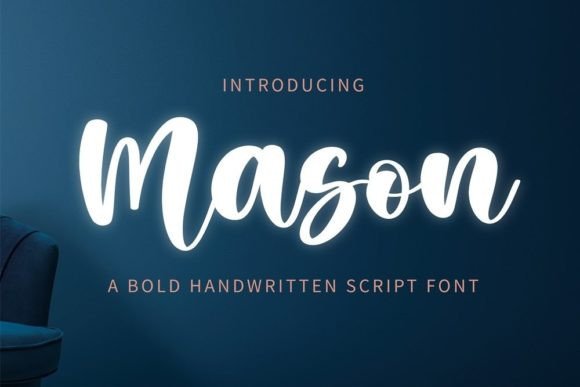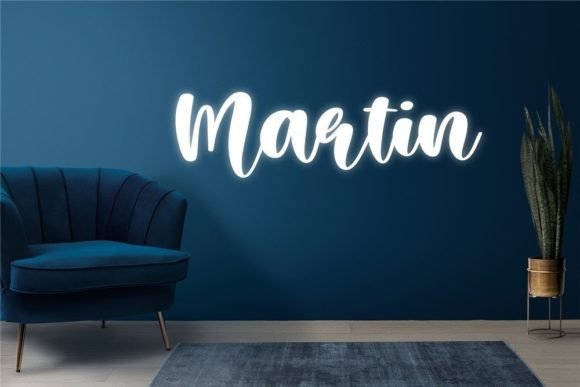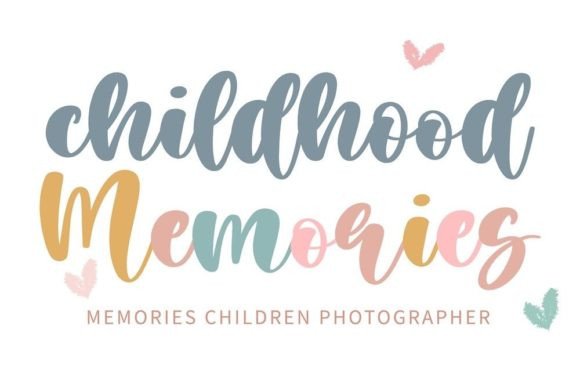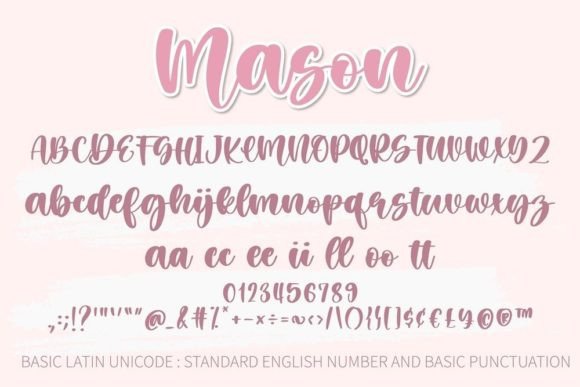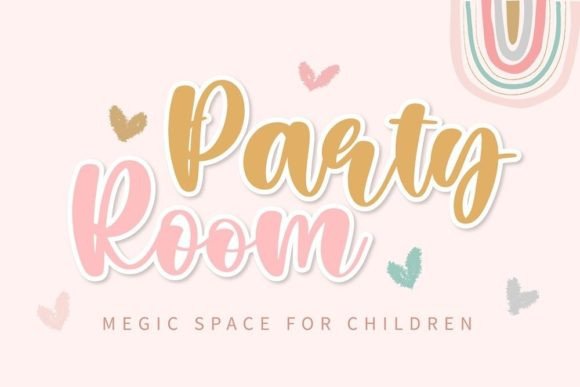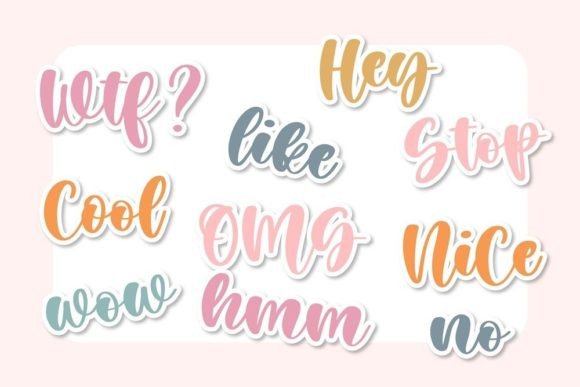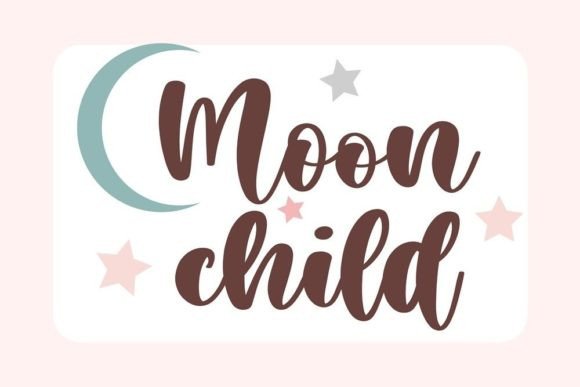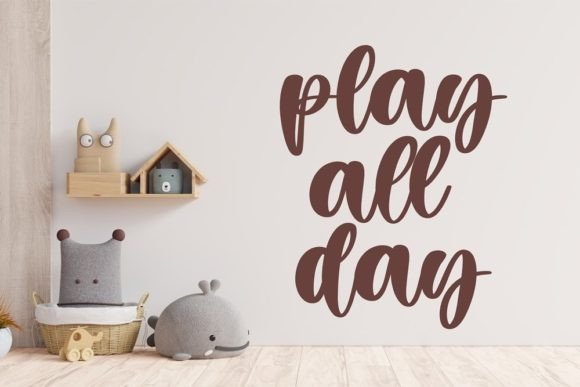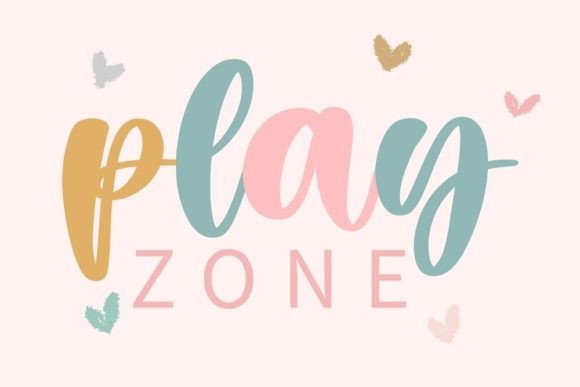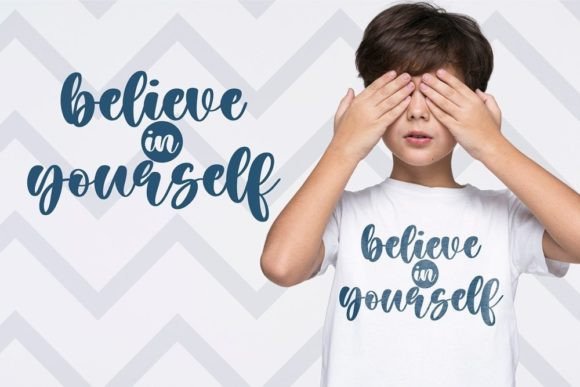
Mason Font
About Mason Font
**Marson** is a delightful and charming handwritten font that exudes sweetness and cuteness. Its versatile style makes it a perfect choice for a wide range of creative projects, including gorgeous wedding invitations, beautiful stationery art, eye-catching social media posts, and much more. With its playful and friendly vibe, **Marson** adds a touch of warmth and character to any design it graces.
The font’s sweetness and cuteness are its standout features, making it particularly appealing for projects that require a friendly and inviting atmosphere. Whether used for wedding invitations, greeting cards, or social media graphics, **Marson** infuses a sense of joy and playfulness into the design, making it more engaging and endearing to viewers.
The versatility of **Marson** allows it to adapt to various themes and styles, making it suitable for both formal and casual occasions. Its handwritten charm adds a personal and authentic touch to the text, creating a connection with the audience. This font is designed to capture hearts and evoke positive emotions, making it a valuable asset for designers seeking to create heartfelt and visually appealing designs.
Embrace the sweet and cute allure of **Marson** and explore how it enhances your creative projects. Its versatility and friendly vibe make it a go-to choice for a wide array of applications, from wedding stationery to social media posts. With **Marson**, your designs come to life with a touch of sweetness, captivating the hearts of your audience and leaving a lasting impression of warmth and charm.